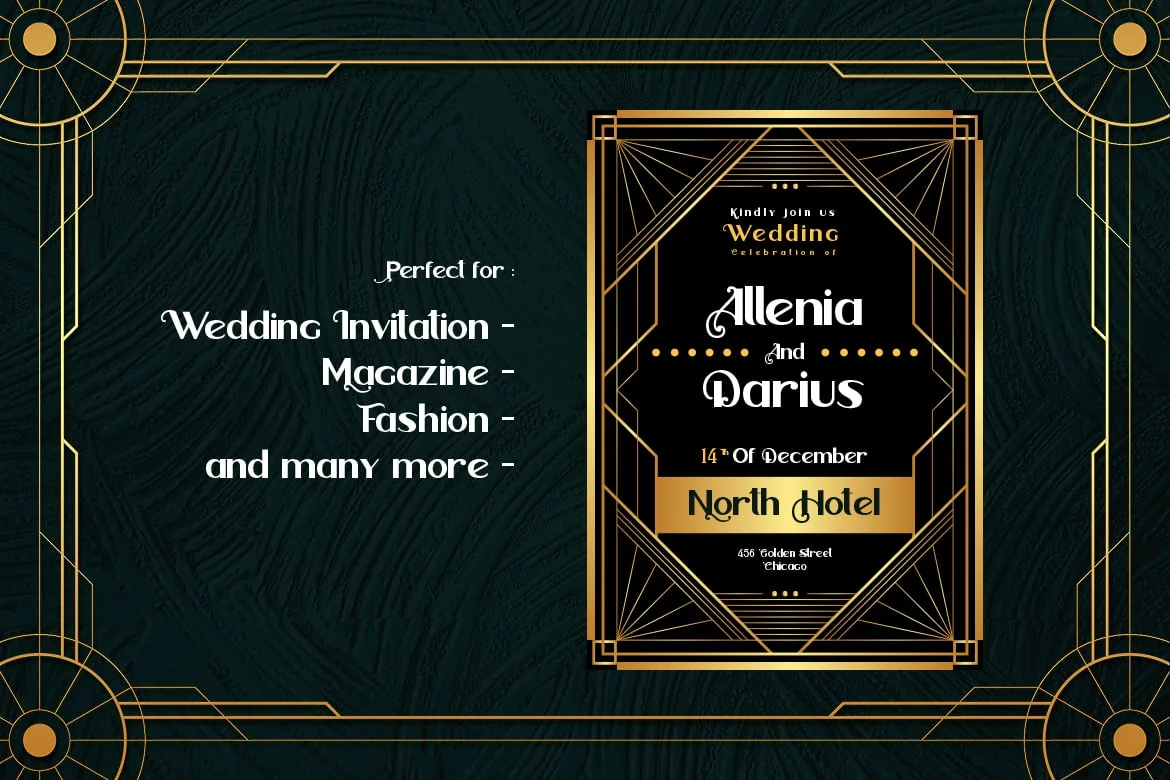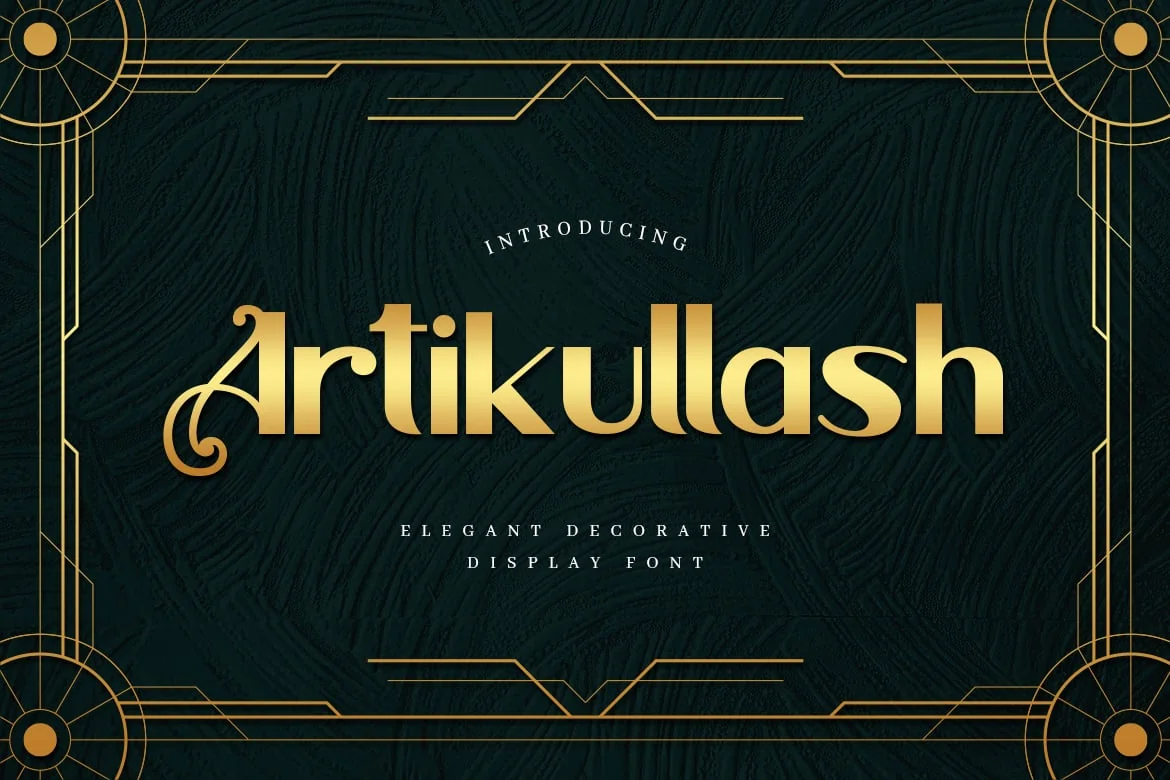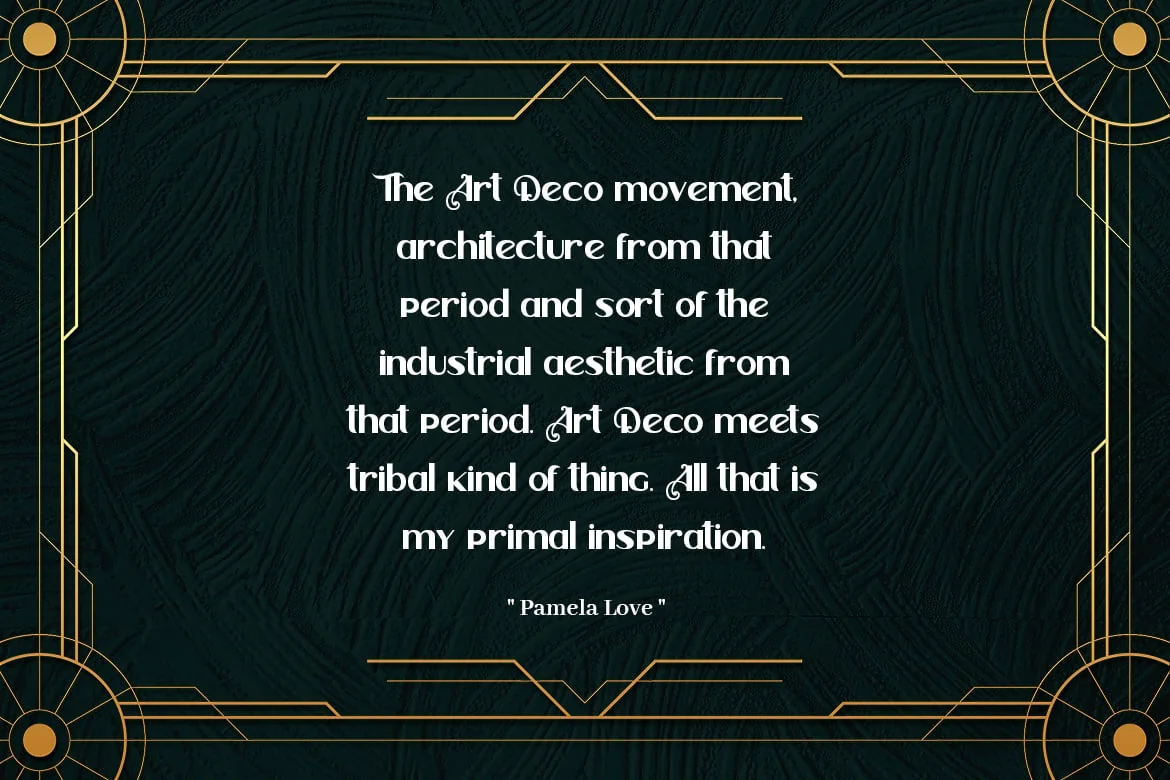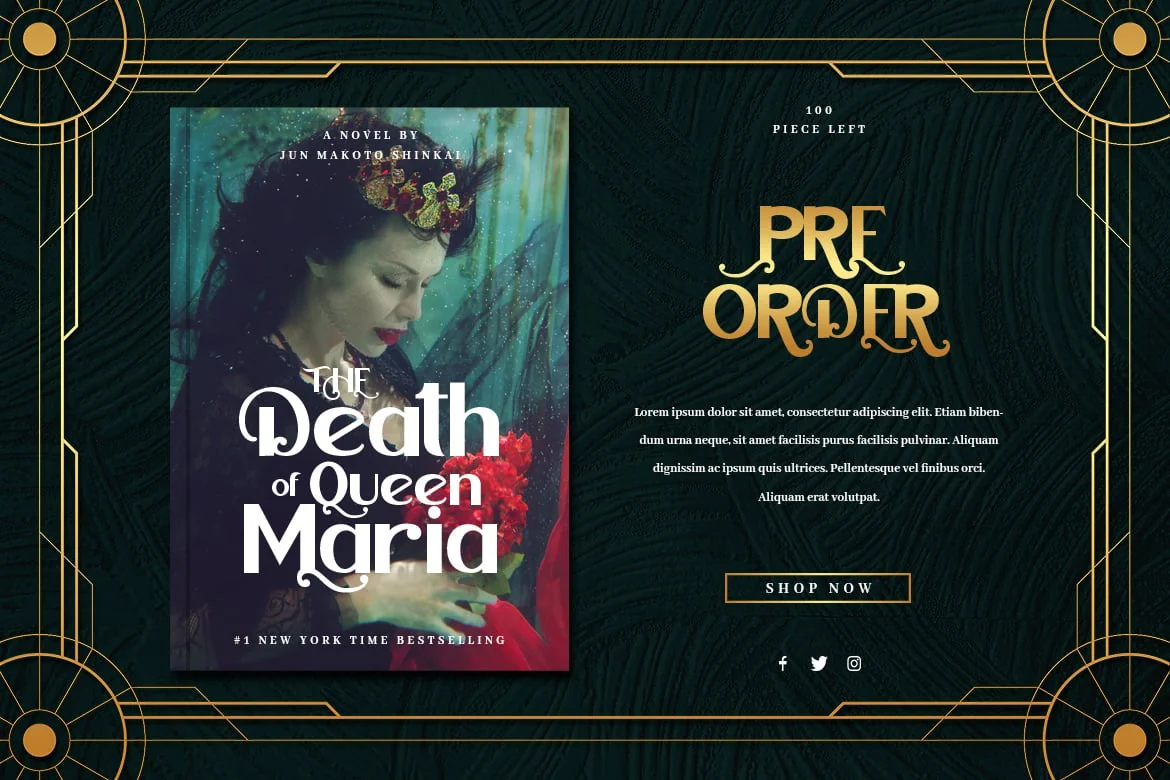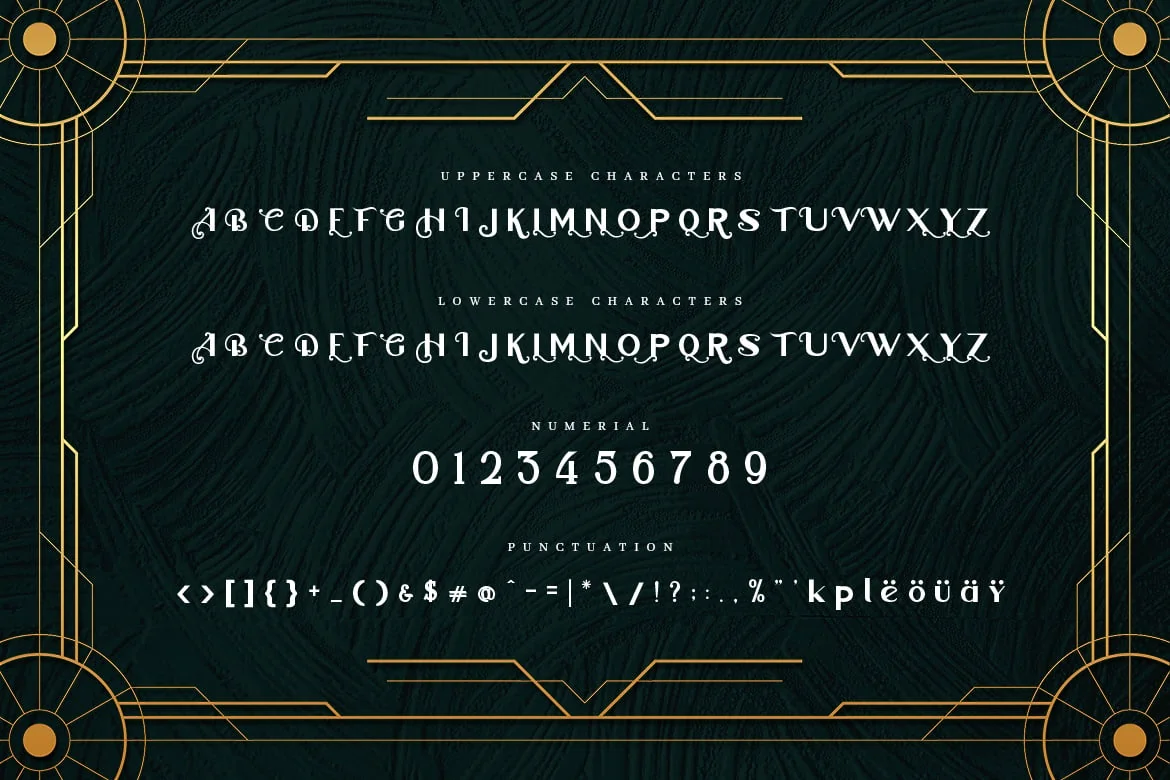
Artikullash – Elegant Art Deco Typeface
Introducing Artikullash font. Are you looking for a bold and solid art deco display font that has an elegant vintage feeling? We can help! Try to download our Artikullash art deco font. The font is suitable to use for many occasion such as invitation, banner, movie title, brand, event, and many more π